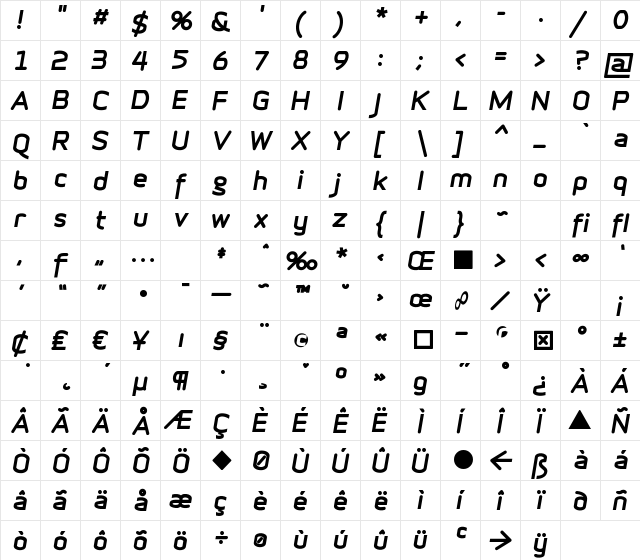
Infinity-T-XBI Regular
Design Context for Infinity-T-XBI Typeface
Infinity-T-XBI offers clean, dependable letterforms without strong stylistic allegiance, making it a practical choice for designers who need flexibility.
Pro Tip: Use Infinity-T-XBI in both headline and body roles to test its range before committing to a single application.